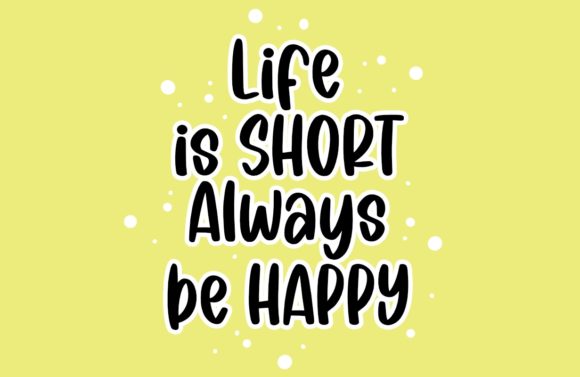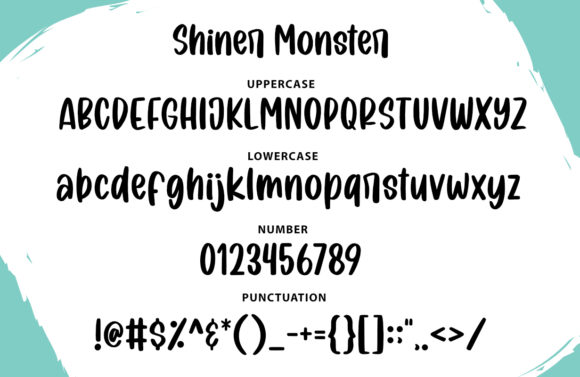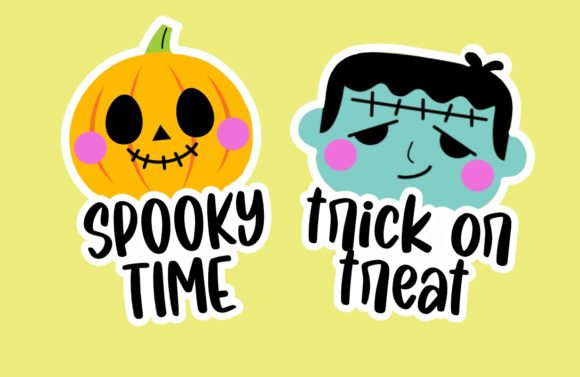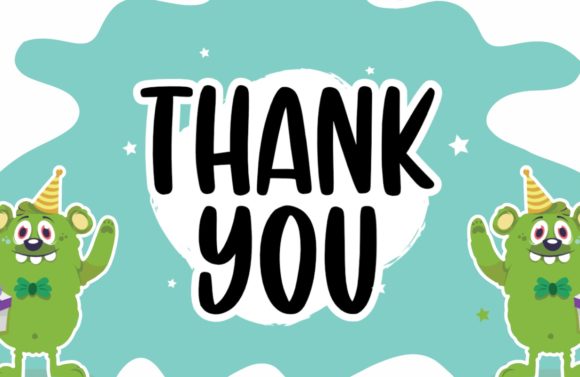
Introduction to Shiner Monster Font
Have you ever found yourself staring at a blank page, waiting for inspiration to strike? You’ve got a creative project in mind, but it’s just missing that special something. For designers, finding the right design resource can be the difference between a mediocre project and a masterpiece. That’s where the Shiner Monster Font comes in – a delightful and quirky handwritten font that adds an extra layer of joy to your designs.
Imagine adding a splash of whimsy to your next design, with letters that dance across the page in a playful, high-quality font. The Shiner Monster Font is perfect for designers who want to add a personal touch to their work, and its transparent background makes it easy to layer over other elements. With its free download, you can start incorporating this design gem into your creative projects today.
Key Features of Shiner Monster Font
- High-quality, unique design for creative projects, making it a valuable design resource.
- Comes with a transparent background, allowing for easy customization and flexibility.
- Font size: scalable, with a recommended size range of 12-48 points for optimal readability.
- Resolution: 300 DPI, suitable for both print and digital applications.
- Unique characteristics: bold, playful, and eye-catching design elements, making it perfect for branding and advertising projects.
Honest Review: Shiner Monster Font
As a designer, I’m always on the lookout for high quality design resources that can elevate my creative projects. The Shiner Monster Font caught my attention, and I was excited to give it a try. One of the first things I noticed was the font’s transparent background, which makes it easy to use on any design project without worrying about awkward backgrounds.
Here are some things that work well with the Shiner Monster Font:
- ✨ Unique and playful style: The font has a fun, monster-like feel that’s perfect for kids’ projects or any design that needs a bit of whimsy.
- ✨ High quality: The font is well-designed and looks great at various sizes.
- ⚠️ Limited character set: The font only includes a limited number of characters, which may not be suitable for complex design projects.
- ⚠️ May not be suitable for formal designs: While the font is great for playful designs, it may not be the best choice for formal or professional projects.
Overall, I think the Shiner Monster Font is a great addition to any designer’s toolkit. While it has some limitations, its unique style and high quality make it a valuable resource for creative projects. Just be sure to consider the limitations before using it for complex or formal designs.
Tips for Getting the Most Out of Shiner Monster Font
Use the Shiner Monster Font in combination with other design elements to create a visually appealing design. Experiment with different font sizes, colors, and styles to achieve the desired effect. With its high-quality design, the Shiner Monster Font is perfect for a wide range of creative projects.
The Shiner Monster Font is commonly used in design projects that require a fun and playful tone, such as children’s books, party invitations, and social media graphics. Its unique design and transparent background make it an ideal choice for designers looking for a free download that can add a creative touch to their projects.
Alternatives to Shiner Monster Font
Comic Sans MS is a classic sans-serif font that is often used in creative projects and is known for its friendly and approachable feel. It is free to download and has a high quality design that works well for various applications. However, it may not be suitable for formal or professional designs.